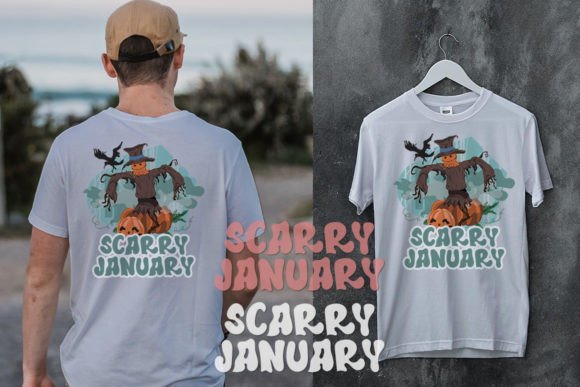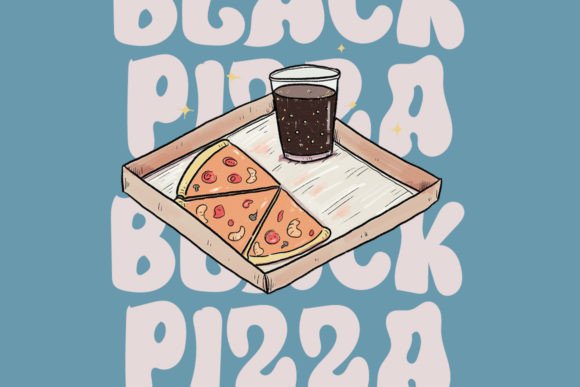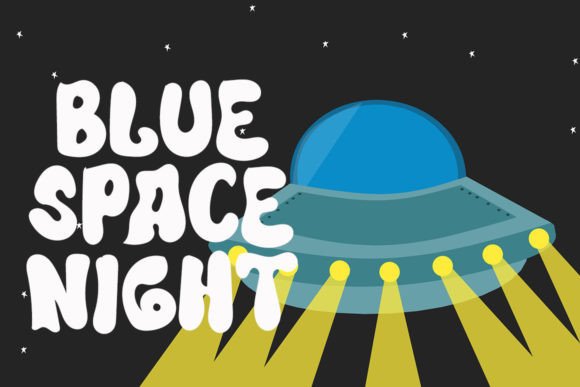
Hearth Stalking Font: Elevate Your Designs with Elegance and Joy
In the world of design, typography plays a crucial role in conveying the message and aesthetic of a project. A beautiful font can make all the difference, adding a touch of elegance, freshness, and joy to your creations. This is where Hearth Stalking Font comes into play – a stunning, sweet, and versatile font that can elevate your designs to new heights.
The Beauty of Hearth Stalking Font
Hearth Stalking Font is a masterpiece of typographic design, characterized by its clean, elegant, and fresh appearance. Its unique style makes it perfect for a wide range of projects, from formal to informal, and can add an incredibly joyful touch to your designs. Whether you’re working on a logo, branding materials, digital media, or craft projects, Hearth Stalking Font is sure to impress.
Key Features of Hearth Stalking Font
- Fresh and Clean Design: Hearth Stalking Font boasts a modern and clean design that will give your projects a contemporary look and feel.
- Elegant Appearance: The font’s elegant style makes it suitable for formal projects, such as luxury branding, high-end events, and premium products.
- Versatile and Adaptable: Hearth Stalking Font can be used in a variety of contexts, from digital media to print materials, and from formal to informal projects.
- Easy to Read: The font’s clear and simple design ensures excellent readability, making it perfect for body text, headings, and titles.
Benefits of Using Hearth Stalking Font
By incorporating Hearth Stalking Font into your designs, you can enjoy numerous benefits, including:
- Enhanced Visual Appeal: The font’s unique style will add a touch of elegance and joy to your projects, making them more visually appealing.
- Increased Legibility: Hearth Stalking Font’s clean design ensures excellent readability, making it easy for your audience to understand your message.
- Time-Saving: The font’s versatility and adaptability save you time and effort, as you can use it across multiple projects and applications.
- Professional Look: Hearth Stalking Font will give your projects a professional and polished look, perfect for designers, crafters, and businesses.
Who Can Benefit from Hearth Stalking Font?
Hearth Stalking Font is an excellent choice for:
- Graphic Designers: Looking for a versatile and elegant font to elevate their designs.
- Crafters: Seeking a beautiful and sweet font for their craft projects, such as papercraft, card making, and scrapbooking.
- Businesses: Wanting to create a professional and polished brand image.
- Digital Media Creators: Needing a clean and readable font for their digital content, such as blogs, social media, and videos.
How to Get the Most Out of Hearth Stalking Font
To maximize the potential of Hearth Stalking Font, experiment with different:
- Font Sizes: Use various font sizes to create visual hierarchy and emphasize important information.
- Colors: Try different colors to match your brand’s palette or project theme.
- Combinations: Pair Hearth Stalking Font with other fonts to create a unique and harmonious typographic style.
Hearth Stalking Font is a beautiful, sweet, and versatile font that can elevate your designs to new heights. Its fresh, clean, and elegant appearance makes it perfect for a wide range of projects, from formal to informal. By incorporating Hearth Stalking Font into your designs, you can add a touch of joy, elegance, and professionalism, making your projects more visually appealing and effective.